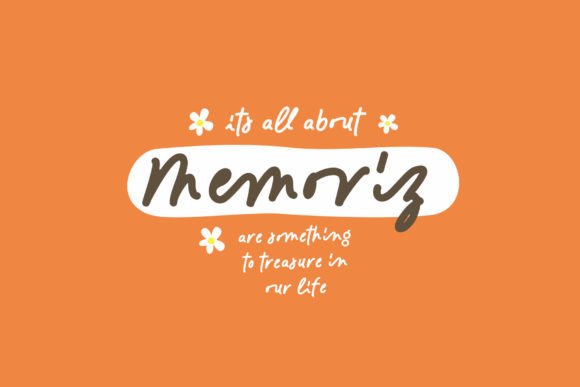
Introducing Memoriz, the playful and adorable handwritten font that will bring an undeniably charming smile to every design it graces. Its whimsical swirls and effortless flow are a visual delight that radiate joyous enthusiasm, making it the perfect choice for capturing life's most heartwarming moments.
Express your creativity with the free-spirited nature of Memoriz, an enchanting creation from the talented Fourlines.design. Let your words dance and twirl across your designs, creating a whimsical wonderland that captivates and inspires. From heartfelt quotes that warm the soul to playful social media content that sparks laughter, Memoriz adds a touch of magic to every project it adorns.
Experience the versatility of Memoriz, a font that effortlessly adapts to a wide array of design concepts. Whether you seek to create delightful stickers that add a personal touch to your belongings or stunning posters that brighten any room, Memoriz seamlessly transforms your ideas into extraordinary realities. Its graceful strokes add a touch of elegance to wedding invitations, bringing a sense of joy and celebration to life's most special occasions.
Bring your creative visions to life with Memoriz, a font that goes beyond mere legibility, evoking emotions and telling stories with every letter. Its charming personality adds a touch of whimsy to social media posts, making your content stand out in the digital landscape. Create eye-catching logos that exude warmth and approachability, leaving a lasting impression on your audience.